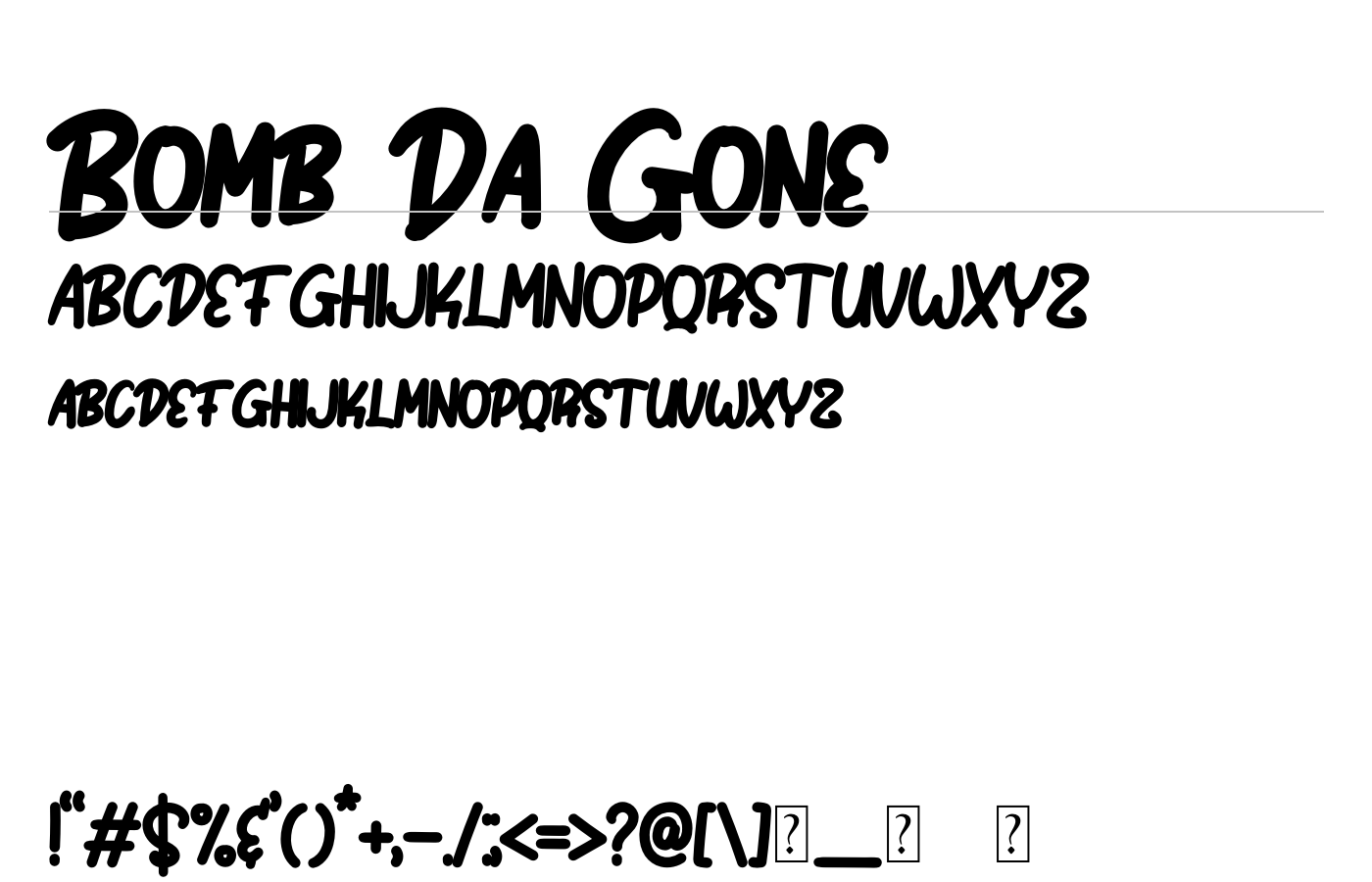
Bomb Da Gone is a bold, playful handwritten font with a casual and energetic feel. Its thick strokes and rounded forms give it a friendly, approachable personality that works well for creative projects, fun branding, and informal headlines. This font is perfect for adding a dynamic, lively touch to posters, logos, and social media graphics where a relaxed yet impactful style is desired.
Bomb Da Gone Font
About Bomb Da Gone Font
| Designer | Prio Nurokhim Aji |